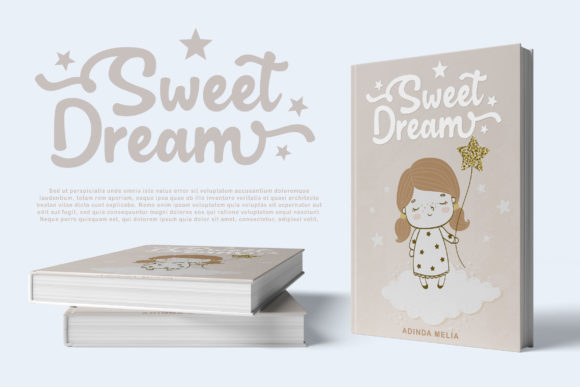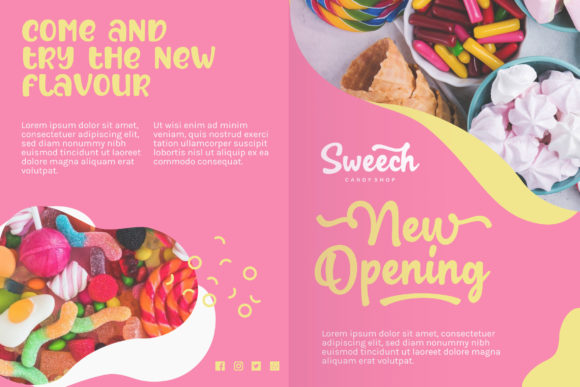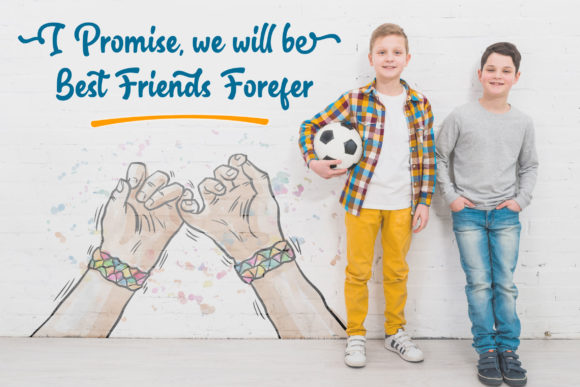
Introduction to Nadilla Font
Nadilla feels magical and lovely, but also elegant.
Get inspired by its imaginative charm, and turn any design project into a true standout This font is PUA encoded which means you can access all of the cute glyphs and swashes with ease.
Key Features of Nadilla Font
Why Choose Nadilla Font?